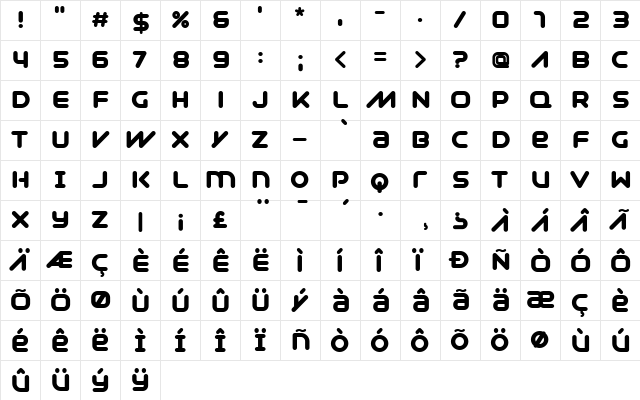
Syntha Nova Black Bold
Design Context for Syntha Nova Black Typeface
Syntha Nova Black offers clean, dependable letterforms without strong stylistic allegiance, making it a practical choice for designers who need flexibility. The heavy weight commands attention and anchors typographic hierarchies.